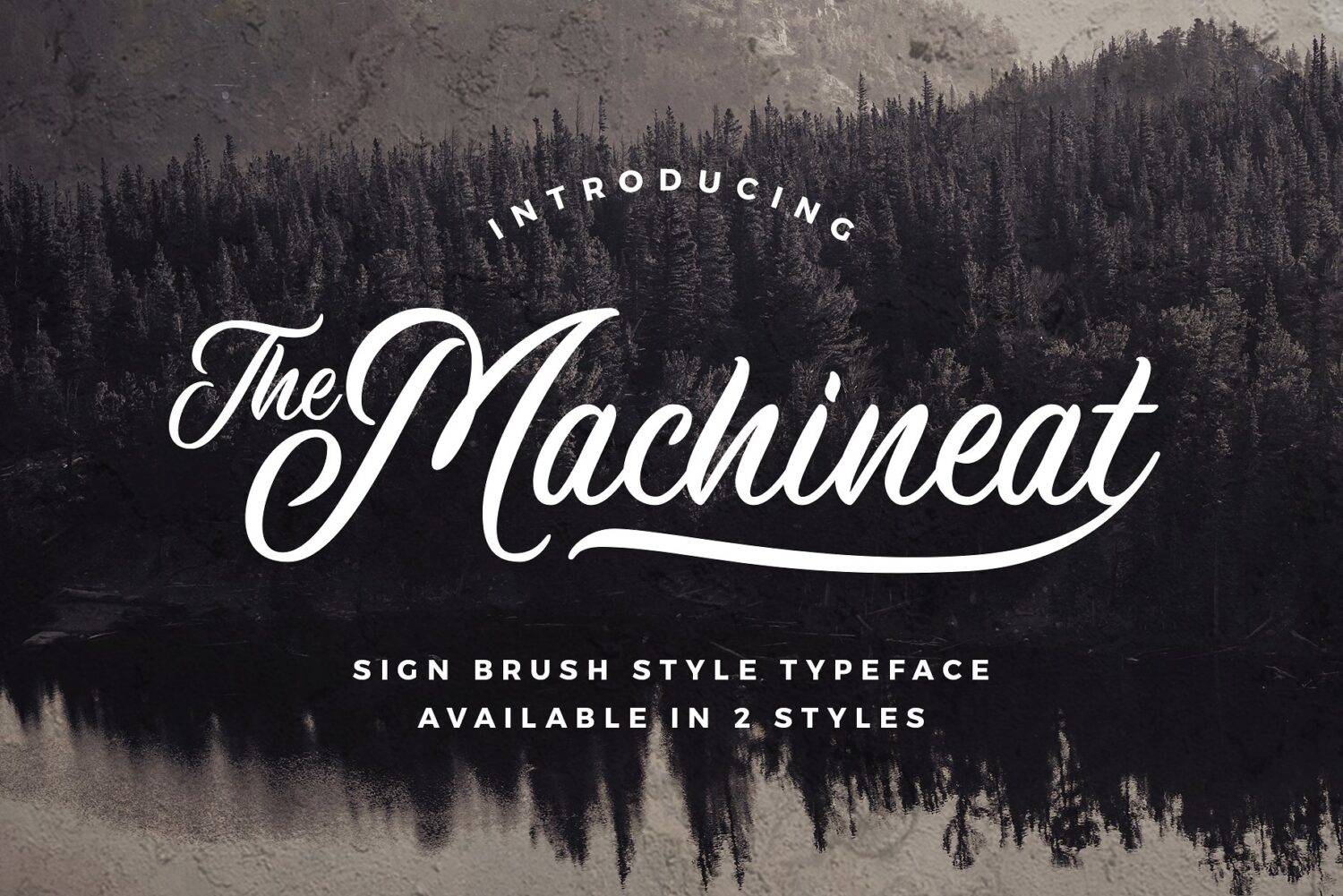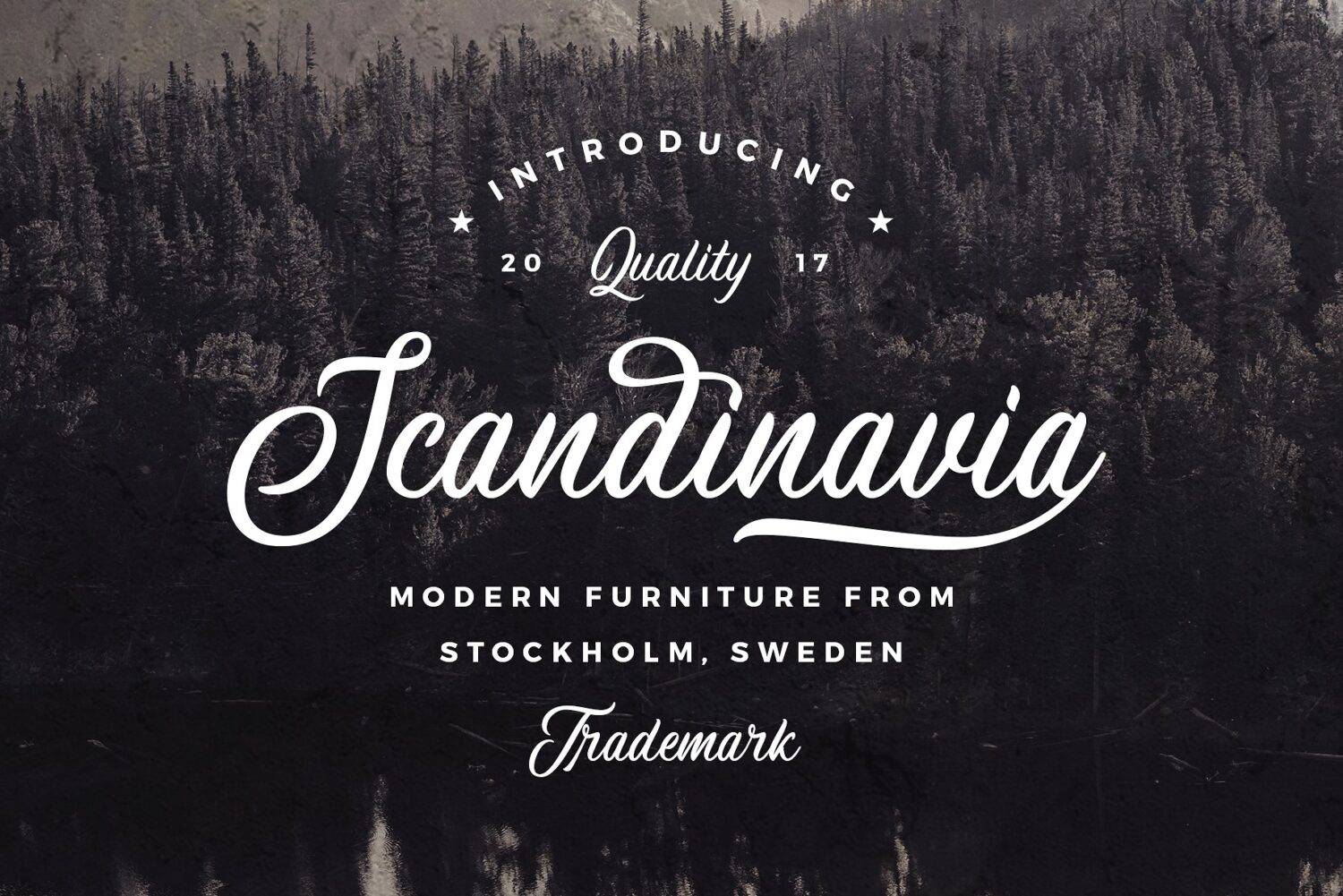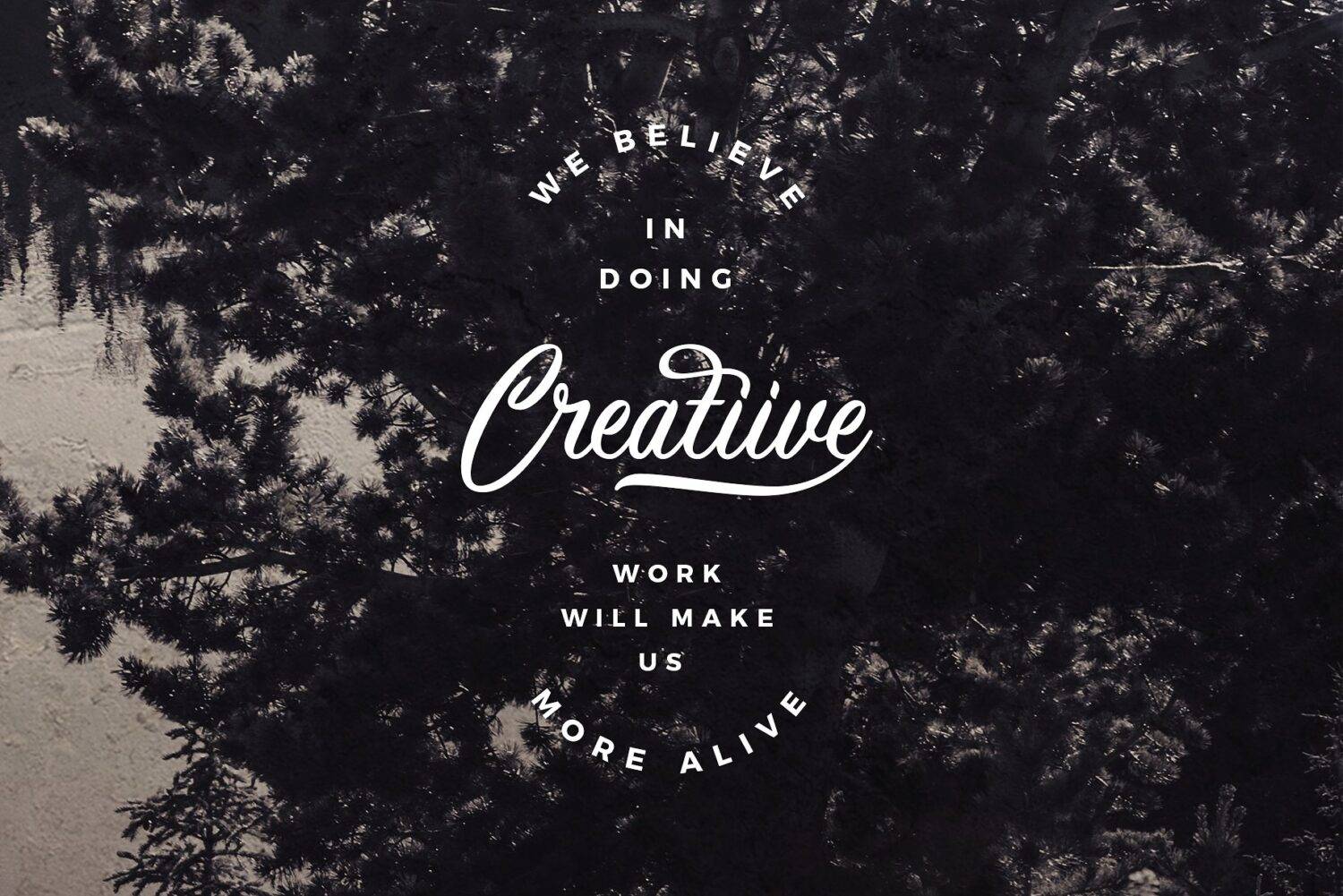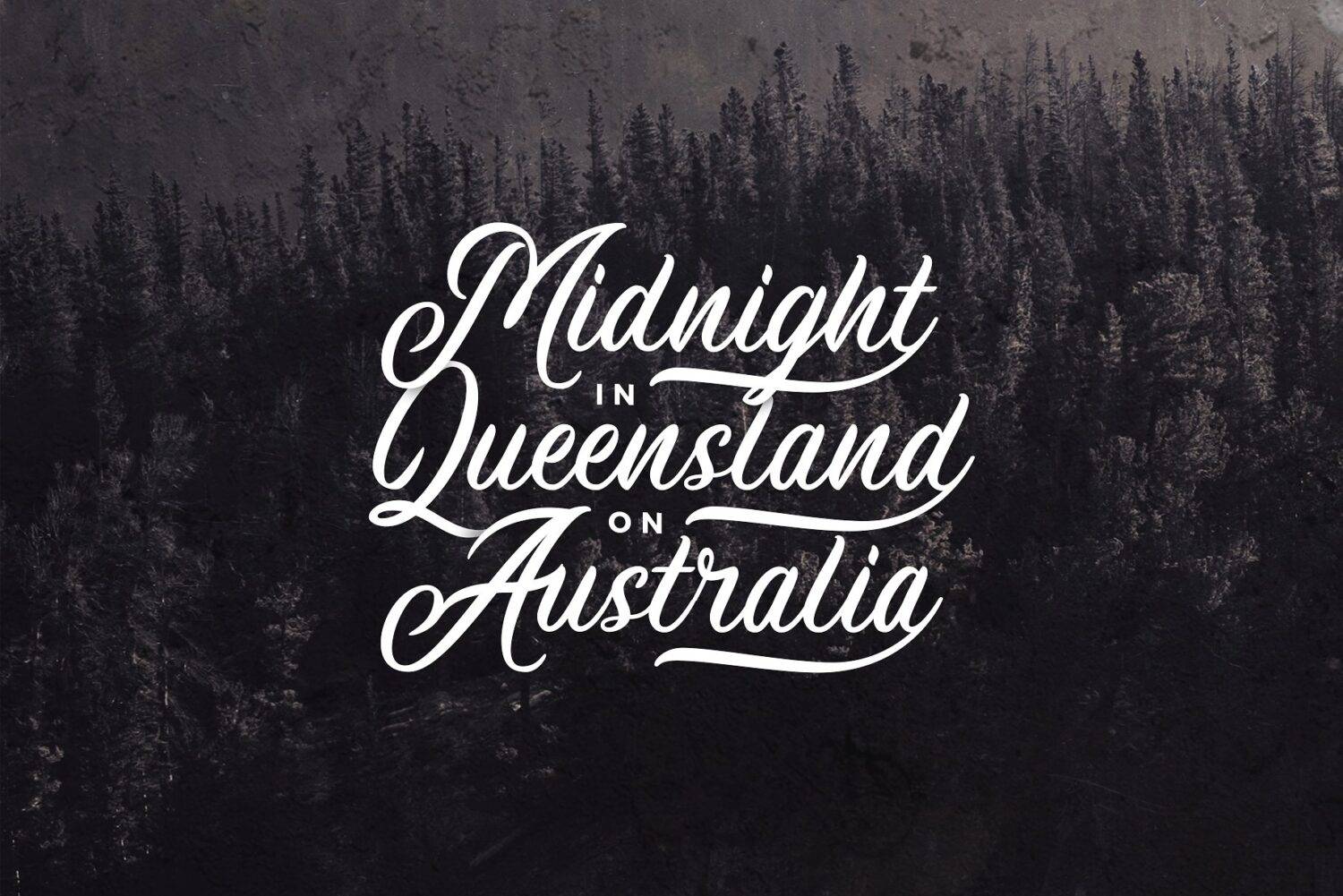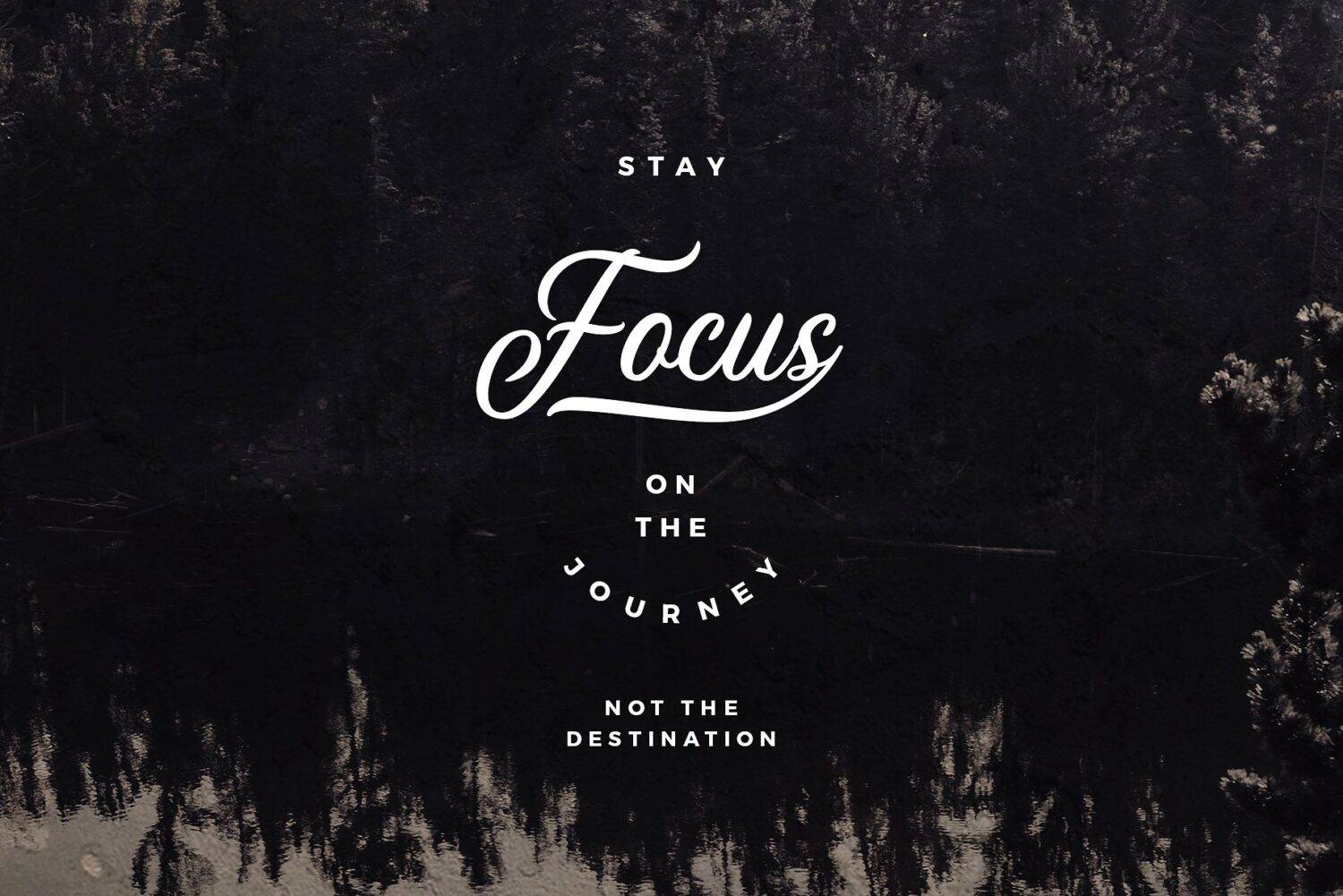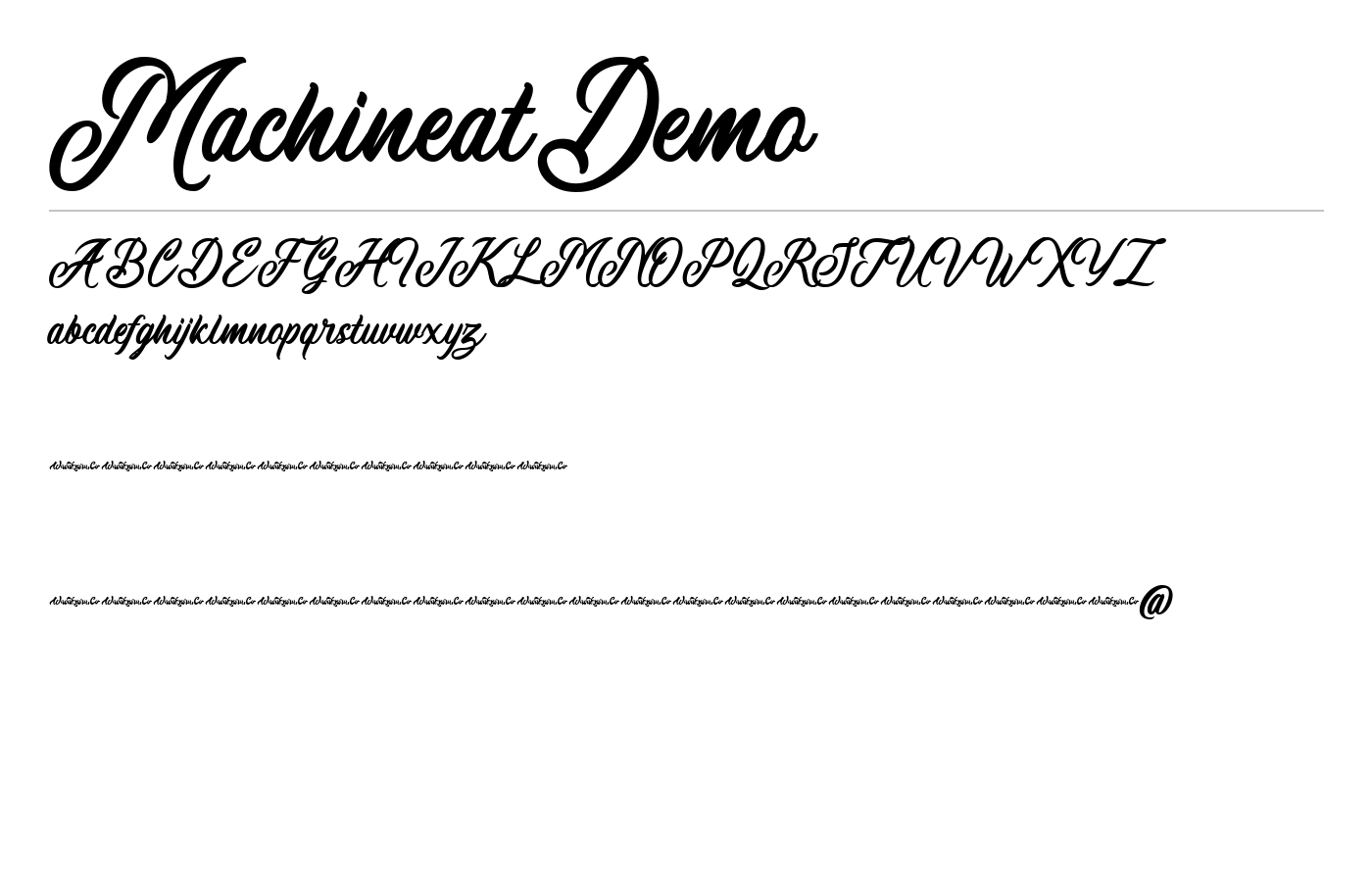
Machineat Font
About Machineat Font
Machineat is an elegant script font featuring smooth, flowing strokes with a bold yet refined presence. Its classic cursive style, with distinctive loops and swashes, gives it a sophisticated and timeless feel perfect for branding, invitations, and stylish headlines. This font works well where a personal, graceful touch is needed, combining readability with artistic flair.